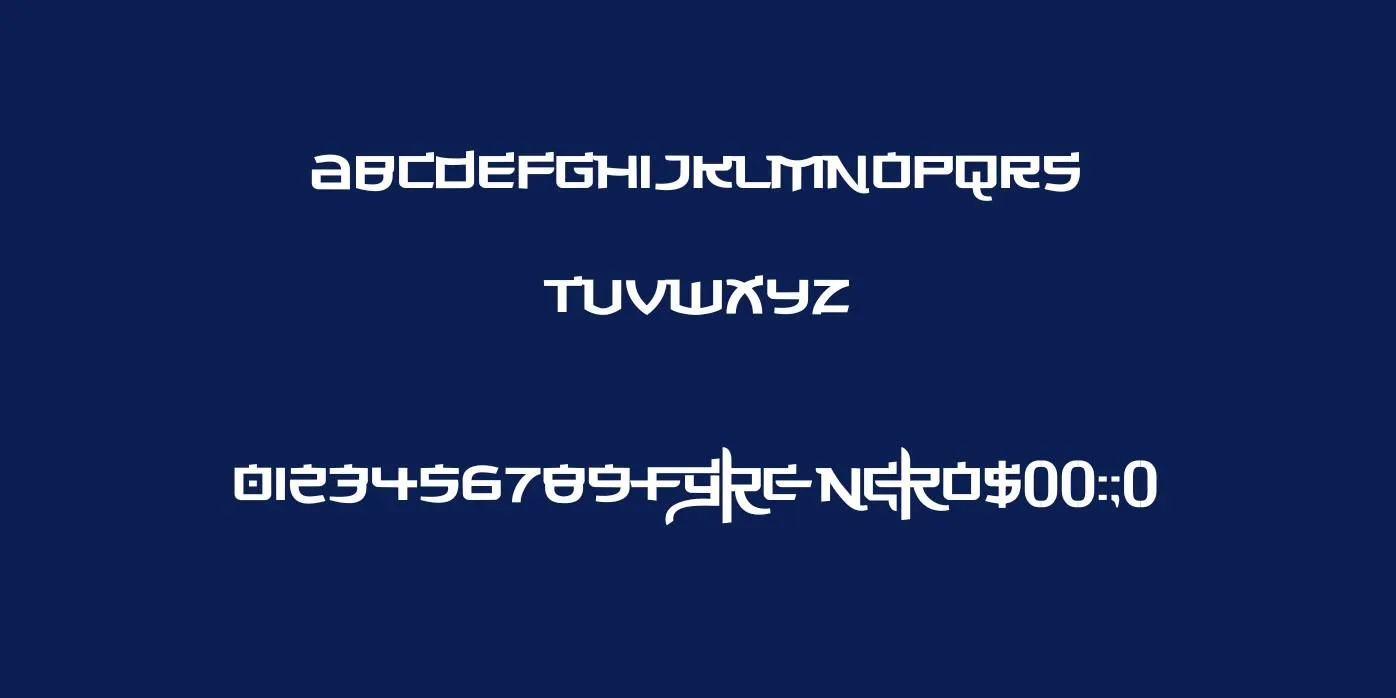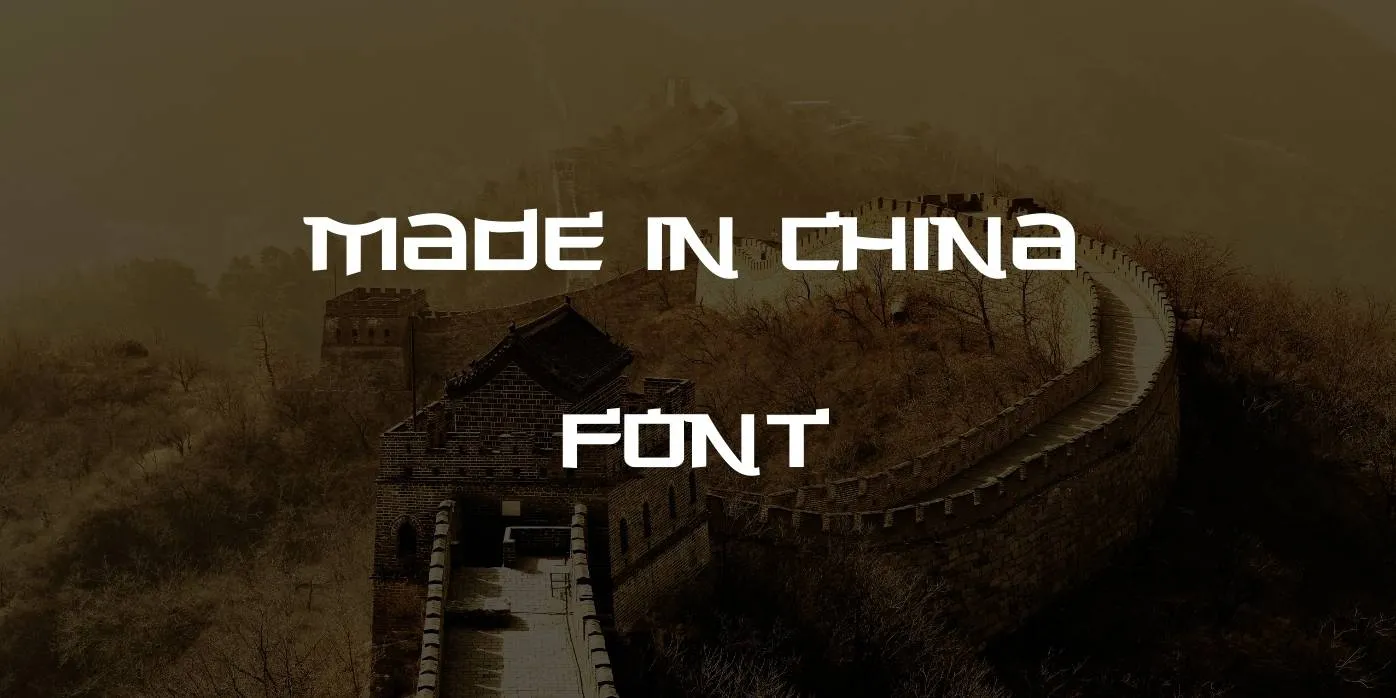
Made in China Font
We discuss information about a very unique and amazing font named Made in China Font. This is a foreign-look font with a Chinese or Japanese style. It was designed by Dale Harris and launched by Utopia Fonts. It contains 206 characters, 96 glyphs, and 1000 units per Em. In this font, embedding rights are restricted.
The weight of the font is Medium (normal) and the width of the font is also medium (normal). It follows the writing directions strongly from left to right and the posture of the font is Upright. Its pitch is not monospaced. It can also be paired with other fonts to see amazing results in your project.
The designer of this font wants to promote Chinese culture and it is the best way to introduce this font worldwide for use.